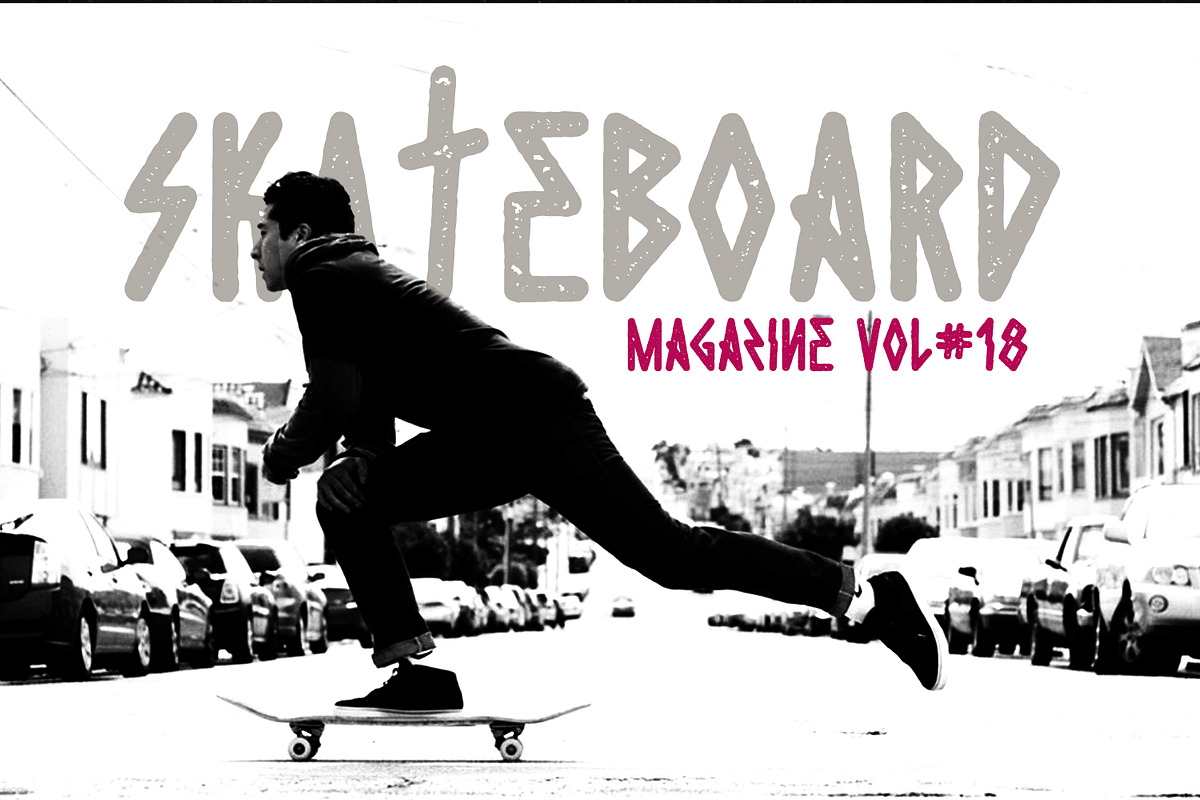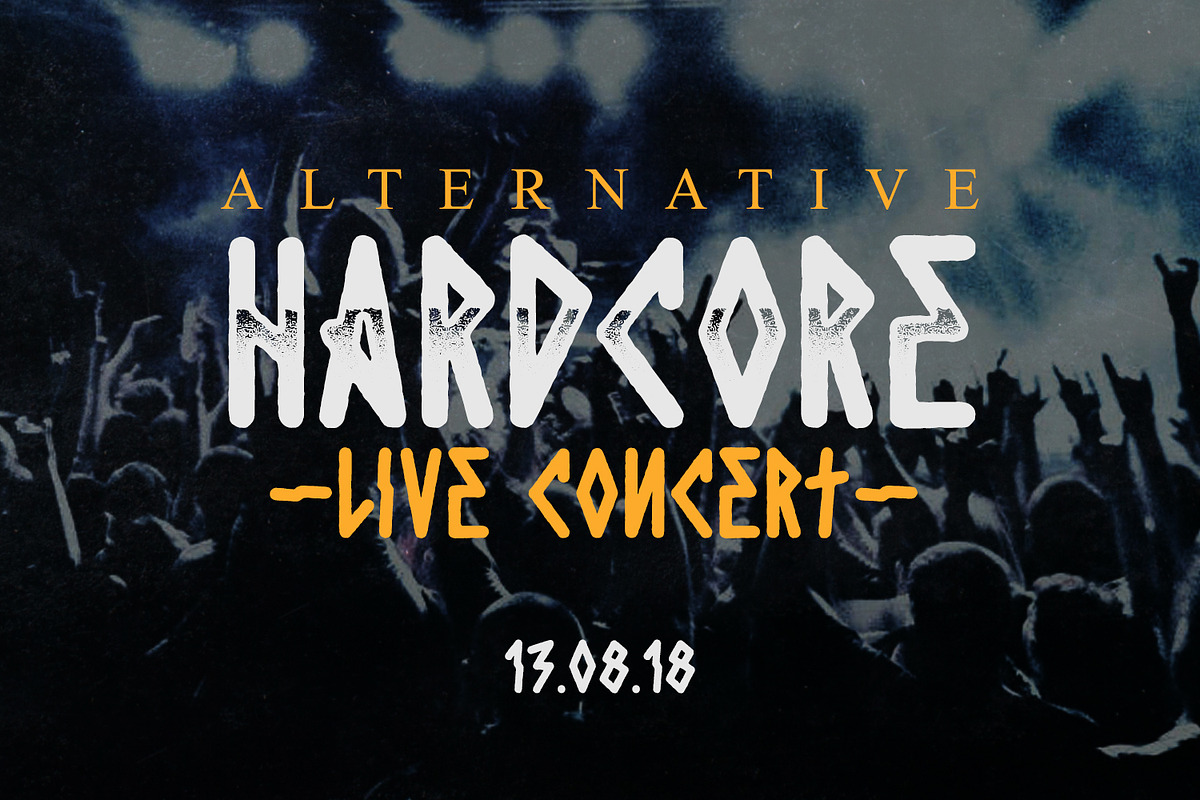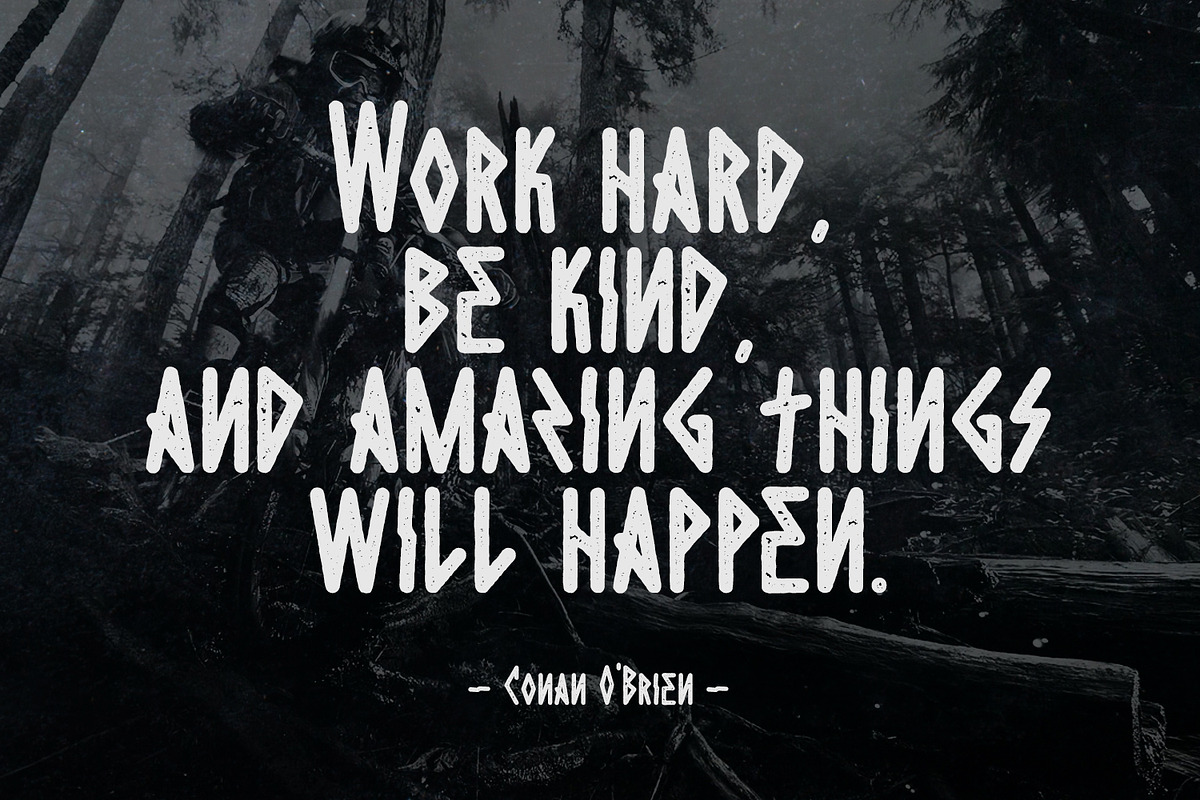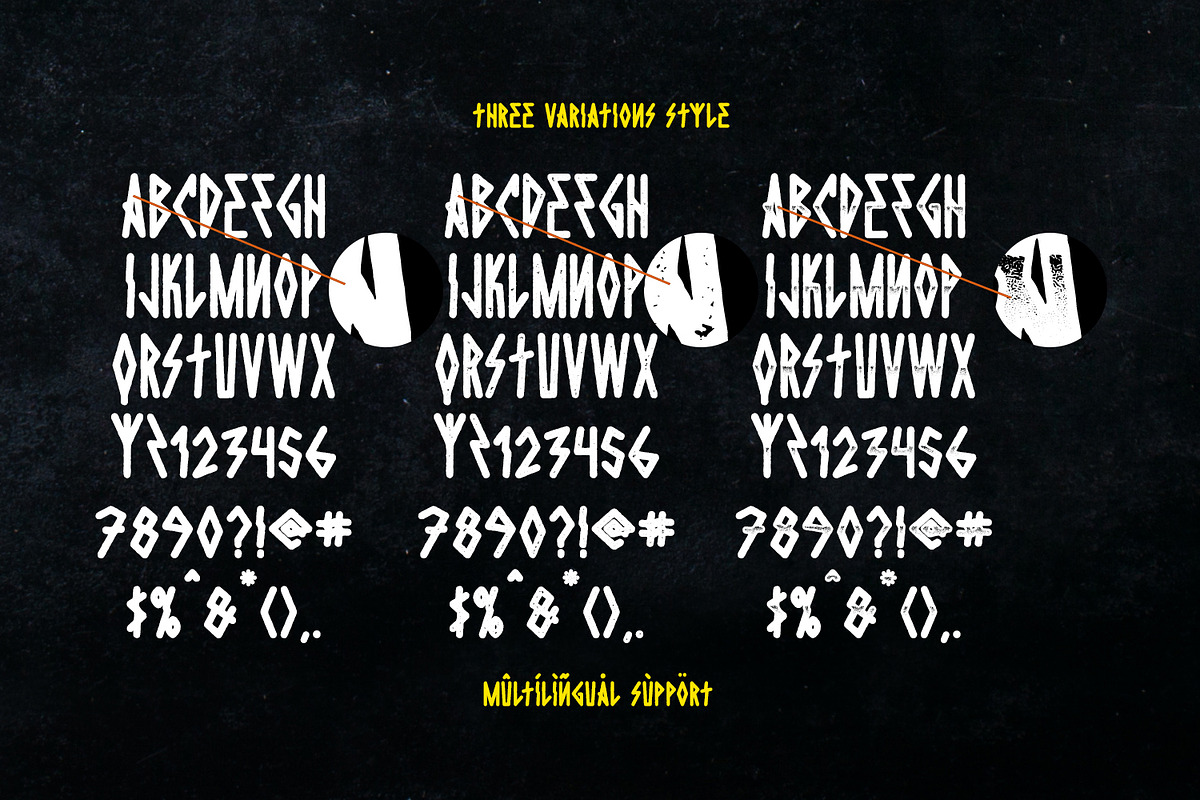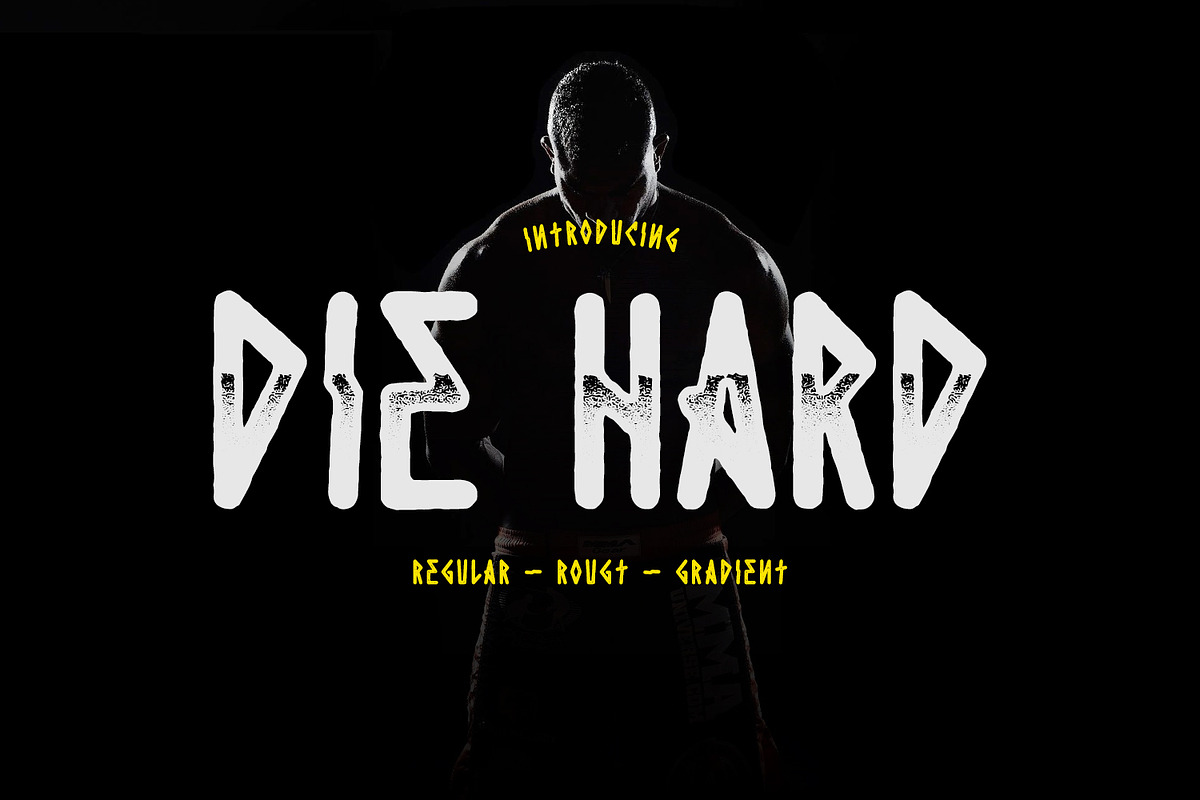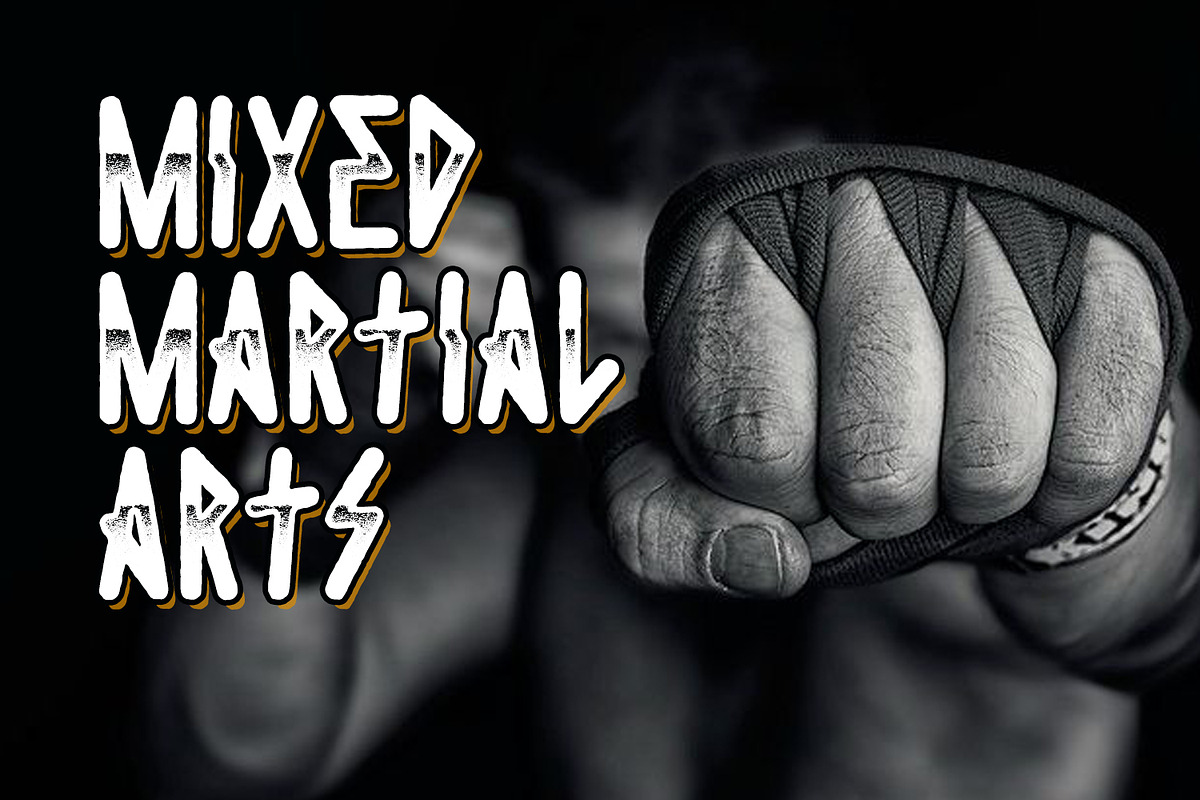
Die Hard Typeface
Hello I'm really excited to introduce Die Hard with vintage and old school style font with three alternative! Die Hard perfect for poster design, book covers, merchandise, fashion campaigns, newsletters, branding, advertising, magazines, greeting cards, album covers, and quote designs and more.
Numerals & Punctuations (OpenType Standard)
Accents (Multilingual characters)